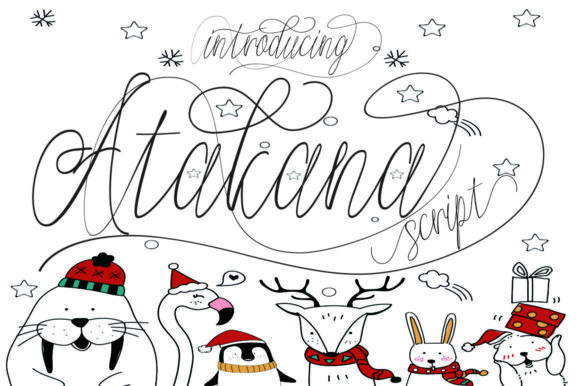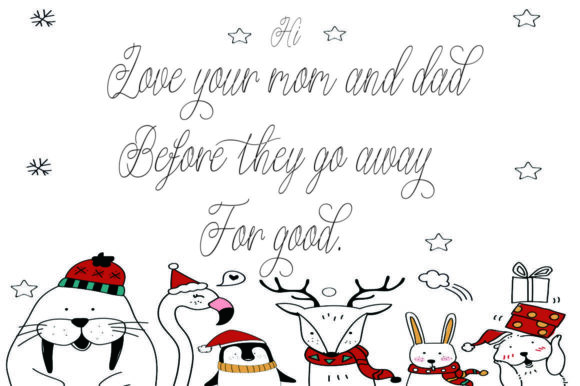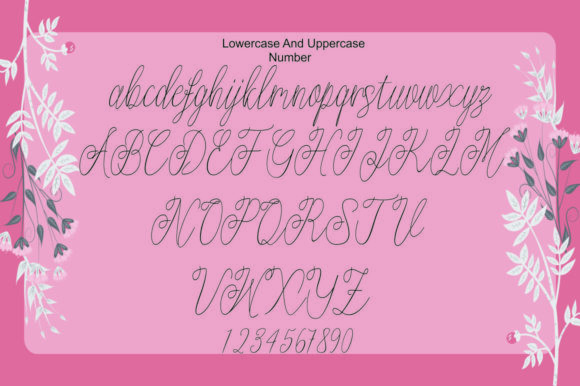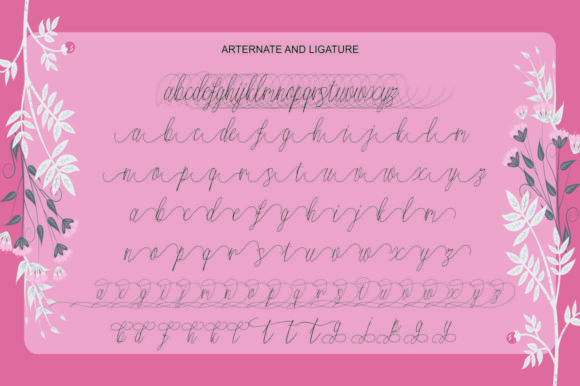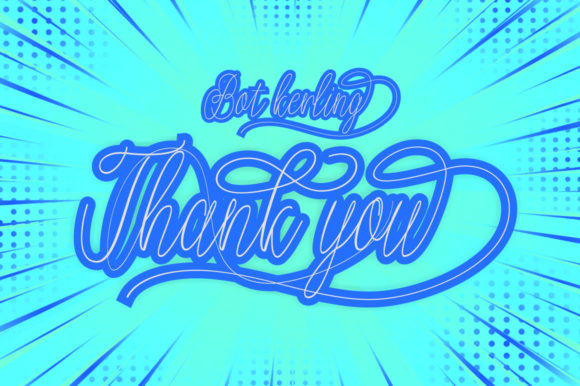
About Atakana Font
Atakana is a thin lettered and ravishing script font. It is PUA encoded which means you can access all of the glyphs and swashes with ease!